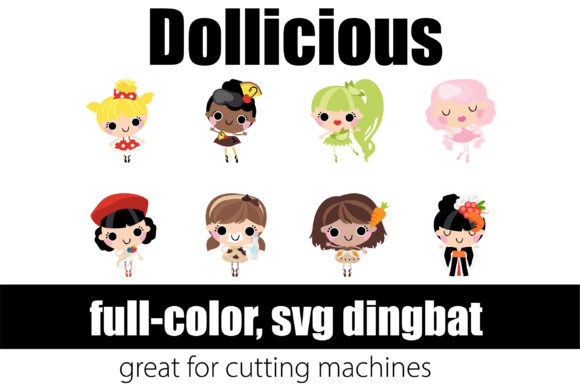
Immerse yourself in a world of vibrant whimsy with the Dollicious Font Family, an enchanting collection of full-color fonts that brings life to your creative endeavors. Picture adorable dolls frolicking amidst their beloved treats, each character bursting with personality and charm. Unleash your imagination and let Dollicious fonts transform your designs into captivating works of art.
The Dollicious Font Family is not just a collection of fonts; it's an invitation to embark on a delightful journey where creativity knows no bounds. With its captivating designs and endless possibilities, Dollicious is the perfect choice for those seeking to add a touch of magic to their projects.
Express your individuality with Dollicious fonts, meticulously crafted to add a dash of whimsy and enchantment to your digital creations. Bring your designs to life with a symphony of colors and adorable characters that will leave a lasting impression.
Welcome to the world of Dollicious, where imagination reigns supreme, and your creative dreams take flight. Dive into a realm of vibrant hues and embrace the boundless possibilities that await you. Let Dollicious fonts be your muse and watch as your designs blossom into masterpieces of imagination.